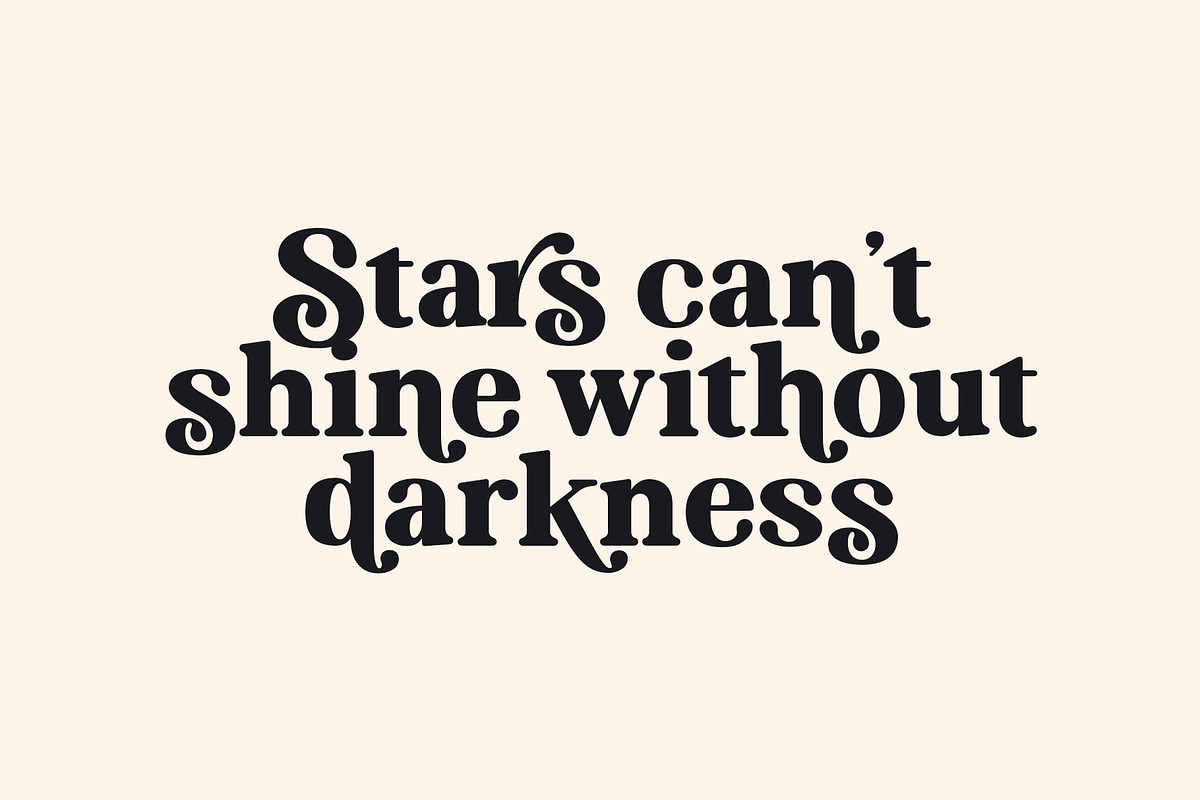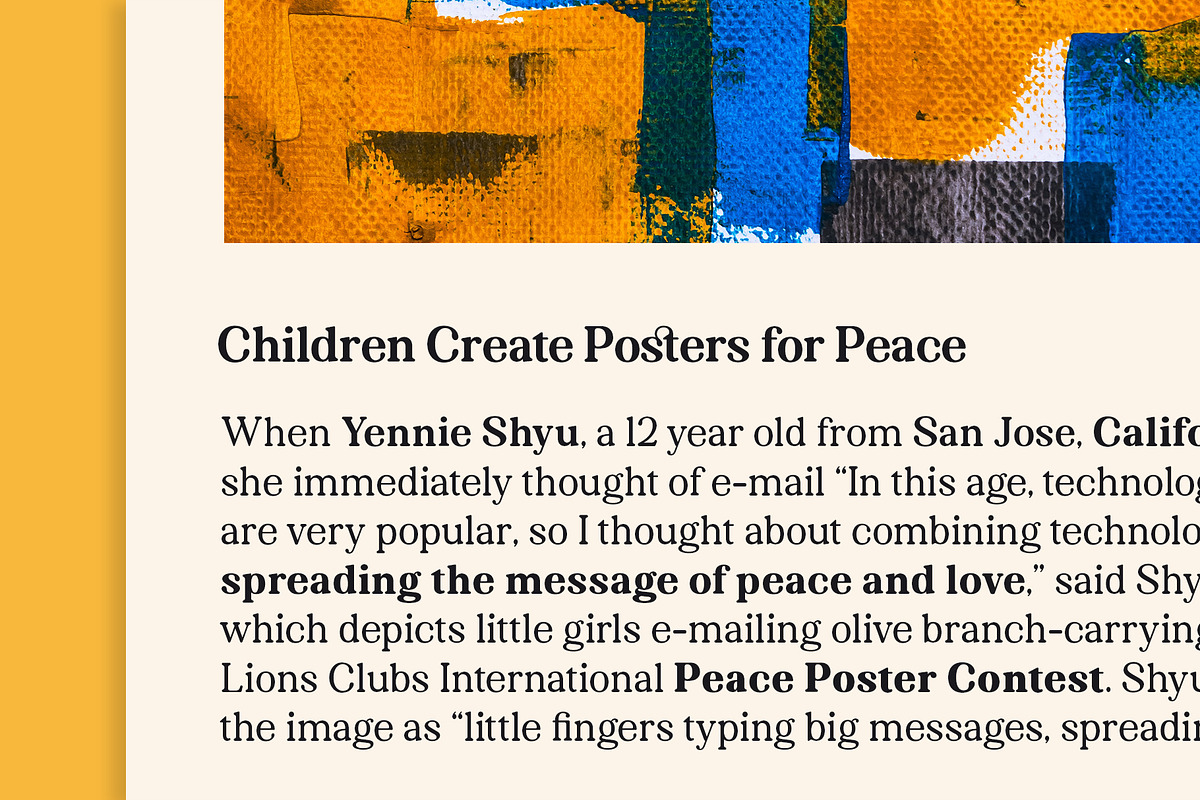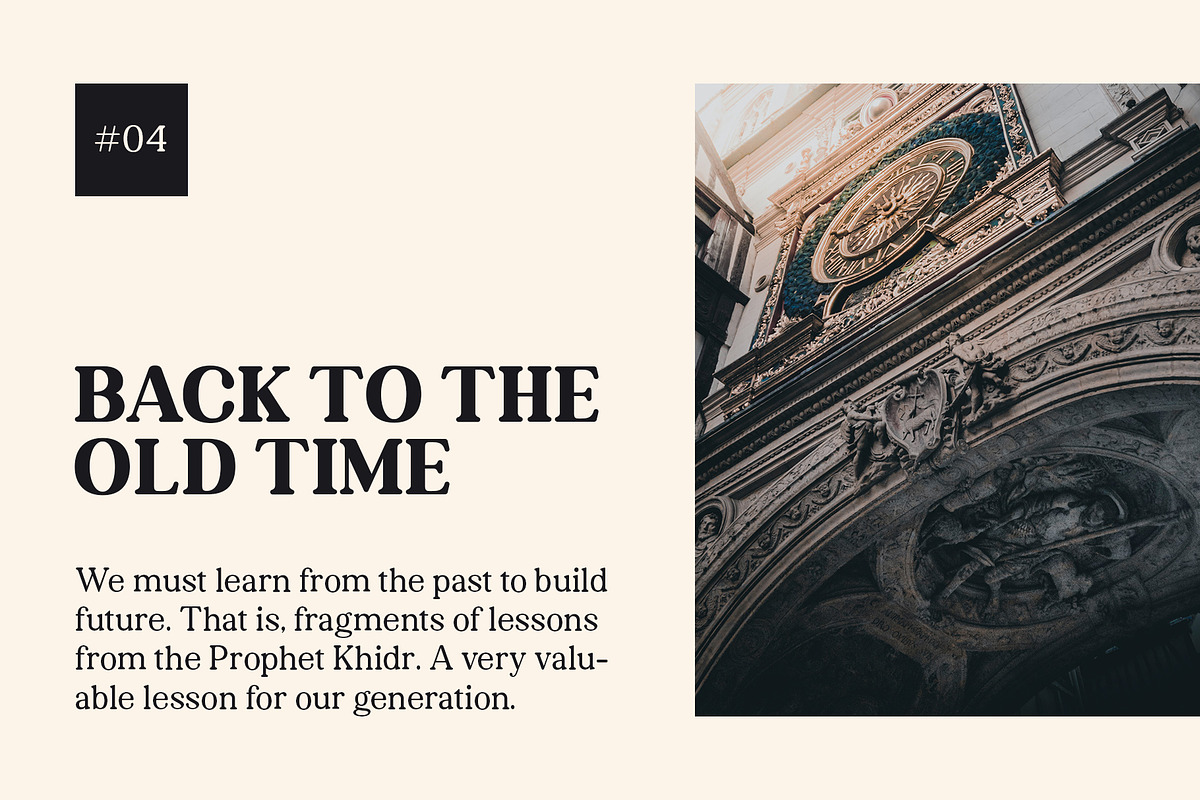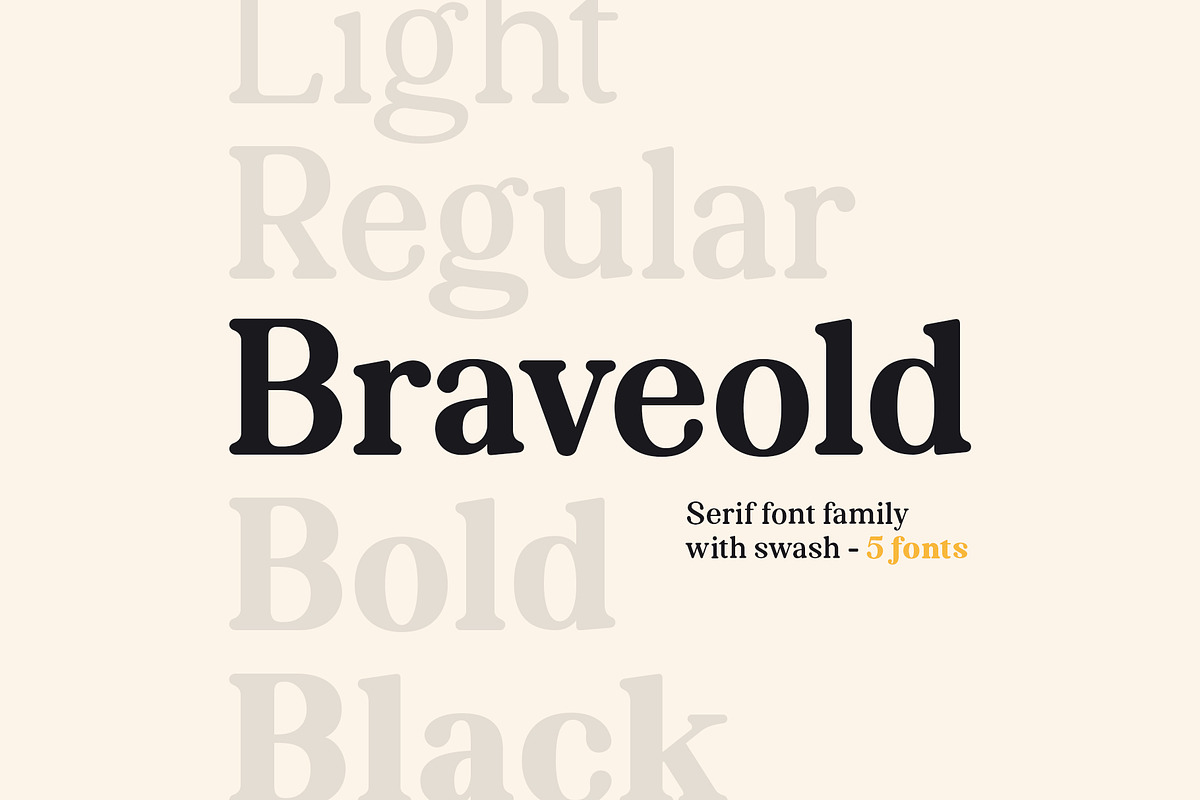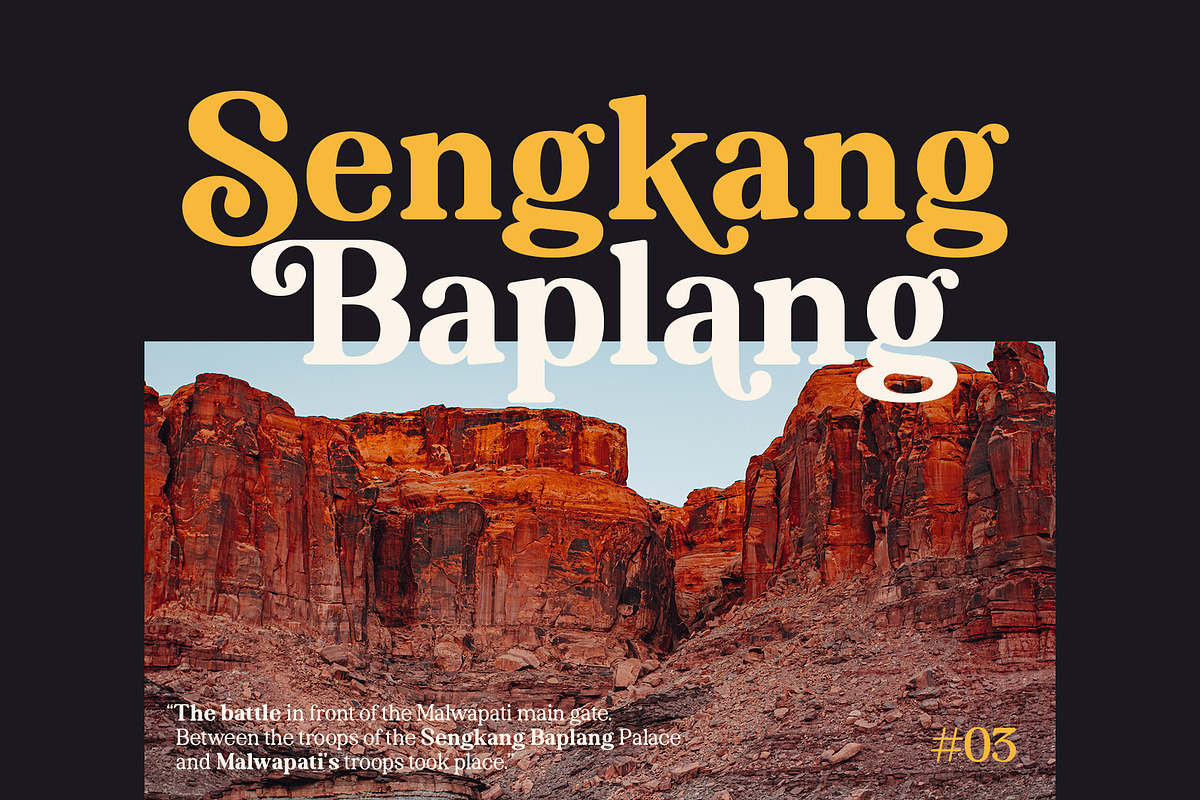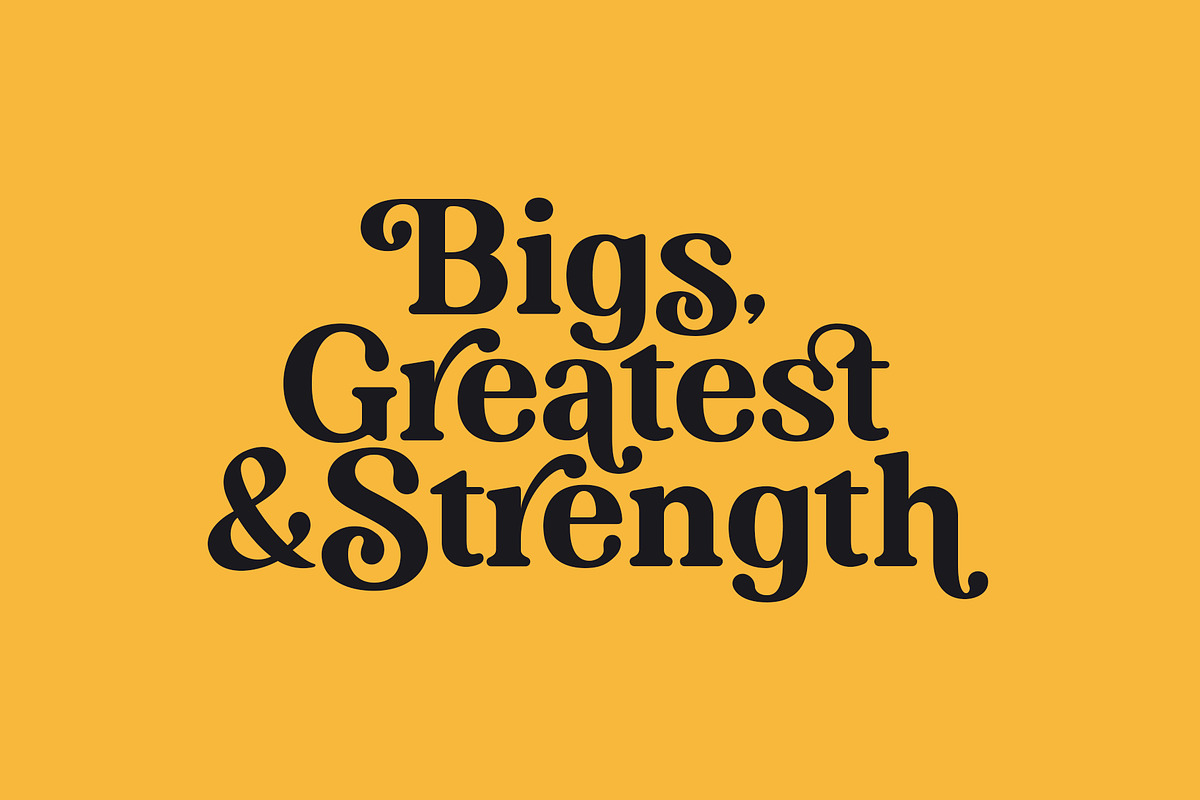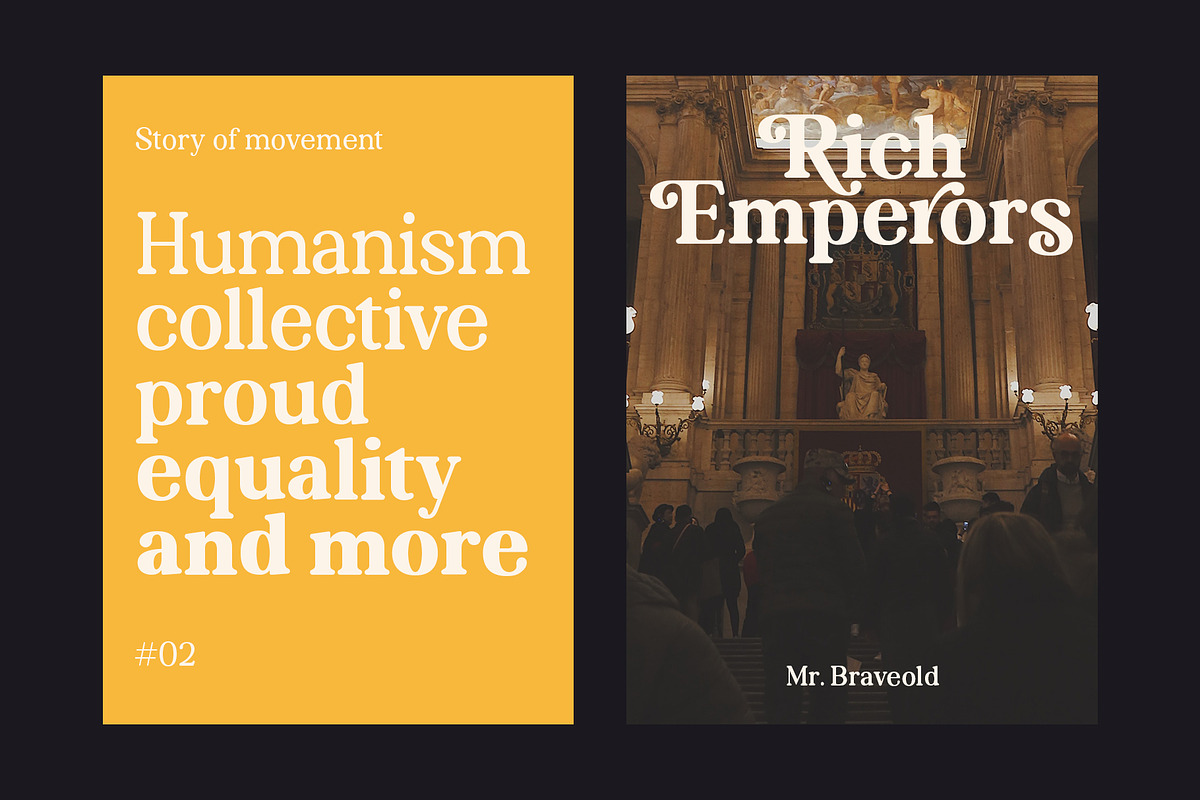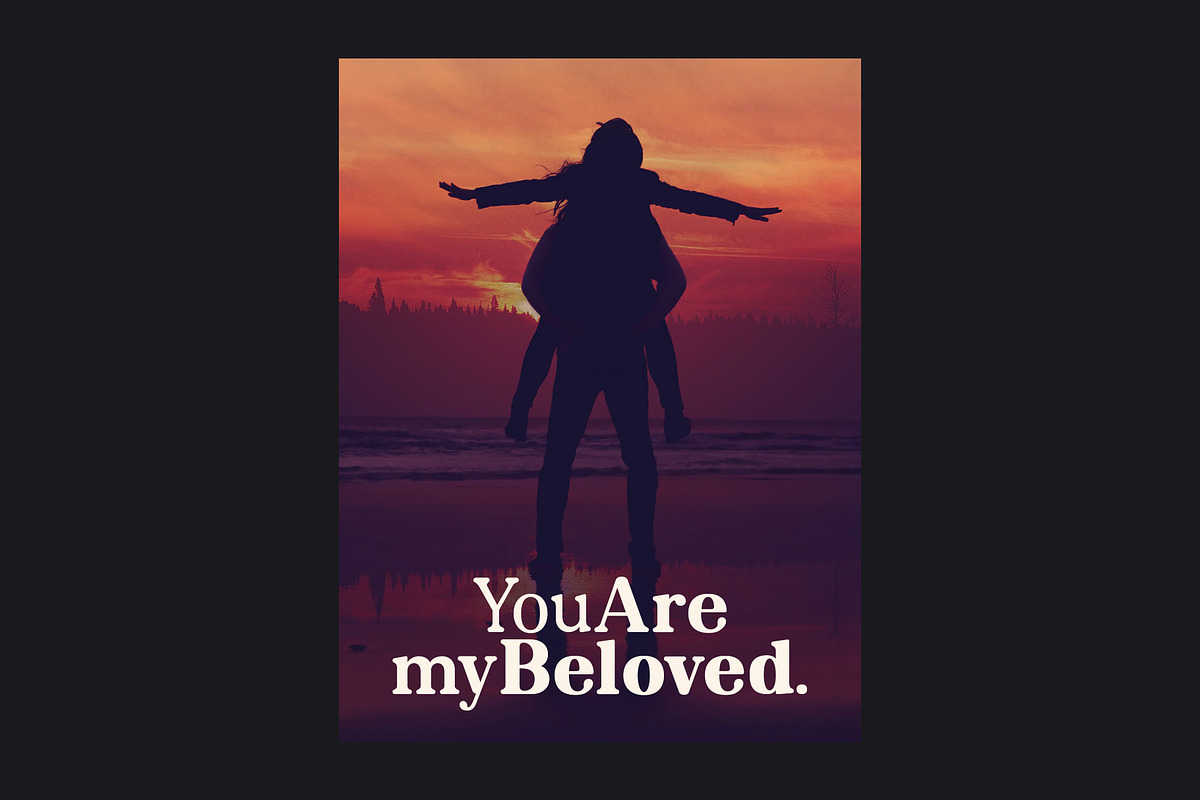
Braveold Font Family
Braveold is a serif font family with swashes, making it multifunctional. It is inspired by classic and retro fonts in the 70 and comes with 5 weights which can be selected for body text or headlines. Alternative swashes will be an attractive choice, so that your project becomes more beautiful and dynamic.
Uppercase & lowercase
Punctuation & symbols
International characters (Multilingual)
- It is inspired by classic and retro fonts in the 70 and comes with 5 weights which can be selected for body text or headlines.
- Braveold Light
- Braveold Regular
- Braveold Medium
- Braveold Bold
- Braveold Black